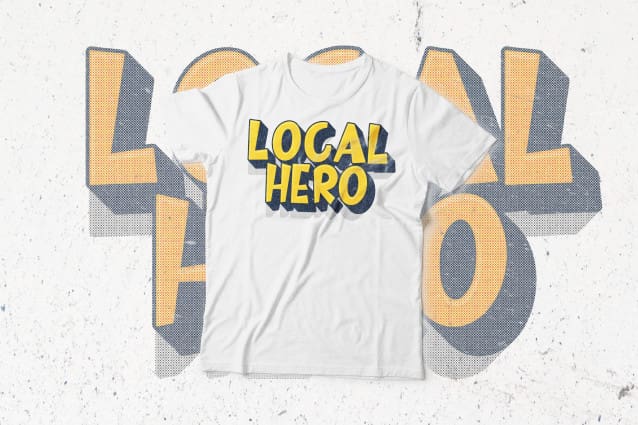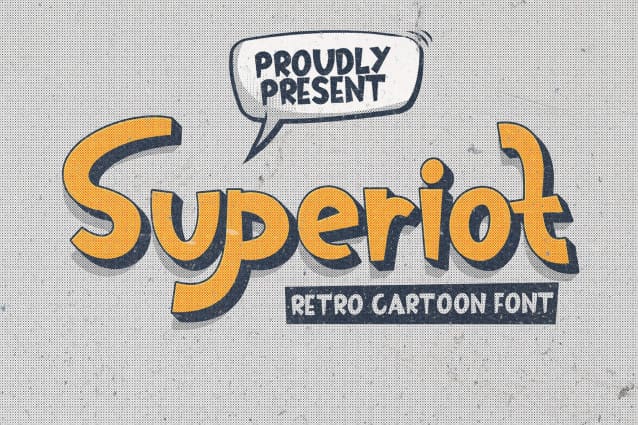
Superiot Display Font
Superiot Display Font is inspired by the style of letters in comics that have less serious and fun characters. Superiot is a sans serif with display font characters which gives a fun and design impression for retro pop art. Superiot is perfect for creating designs with non-serious concepts, designs for children, book headers, and of course for text on comics.
Superiot Display Font is perfect for magazine cover designs, brochures, flyers. Instagram ads, Canva Design and so on with comic, non-serious, pop art, game mobile and fun design. Besides that this font is very easy to use both in design and non-design programs because everything changes and glyphs are supported by Unicode (PUA).